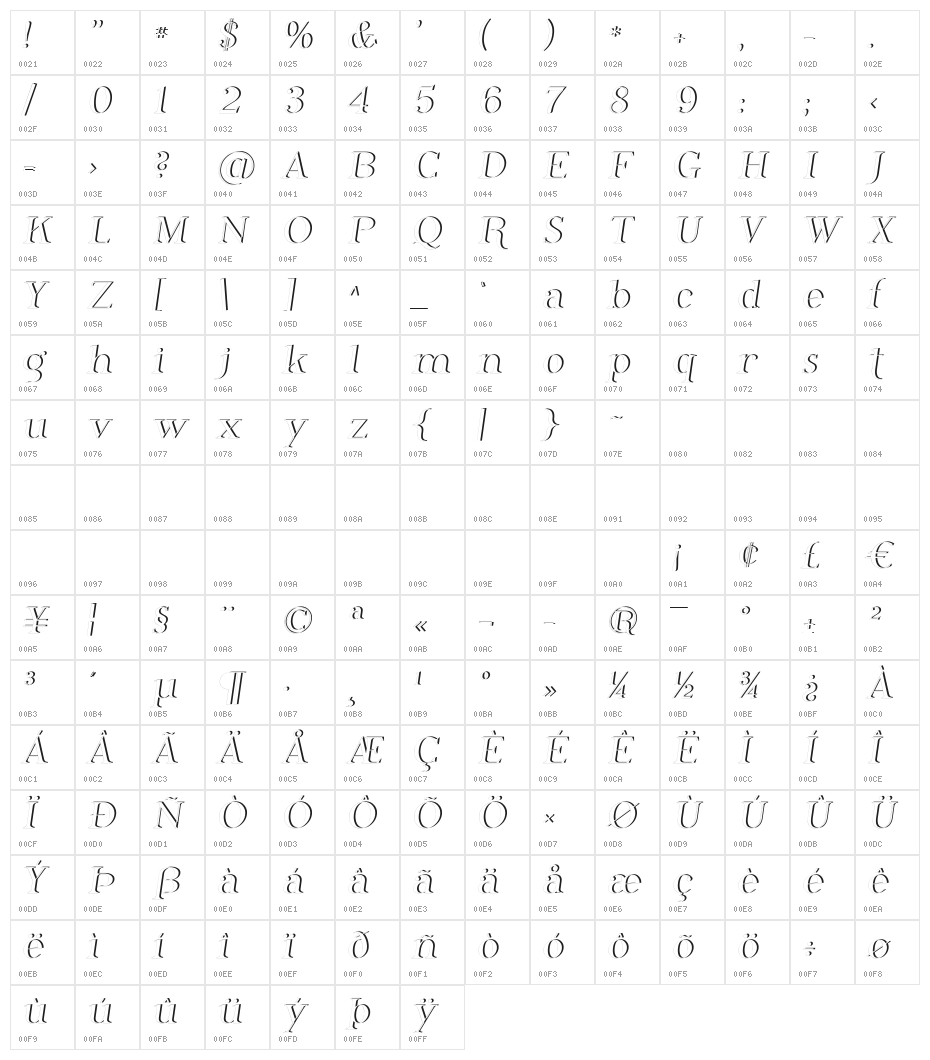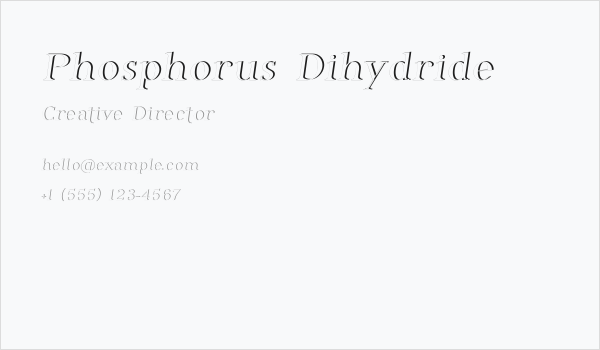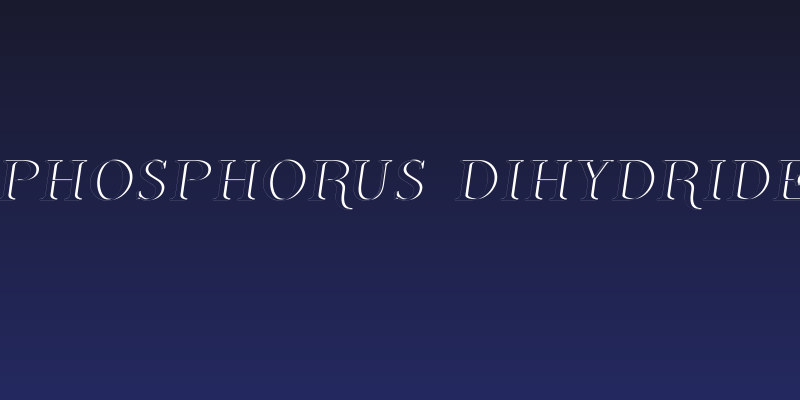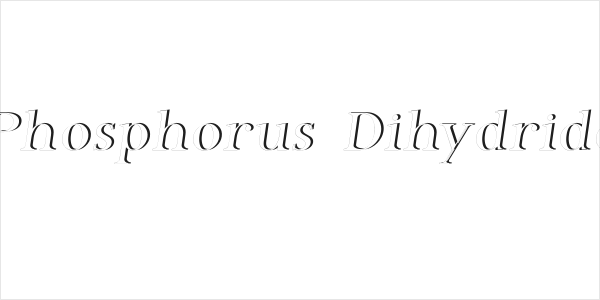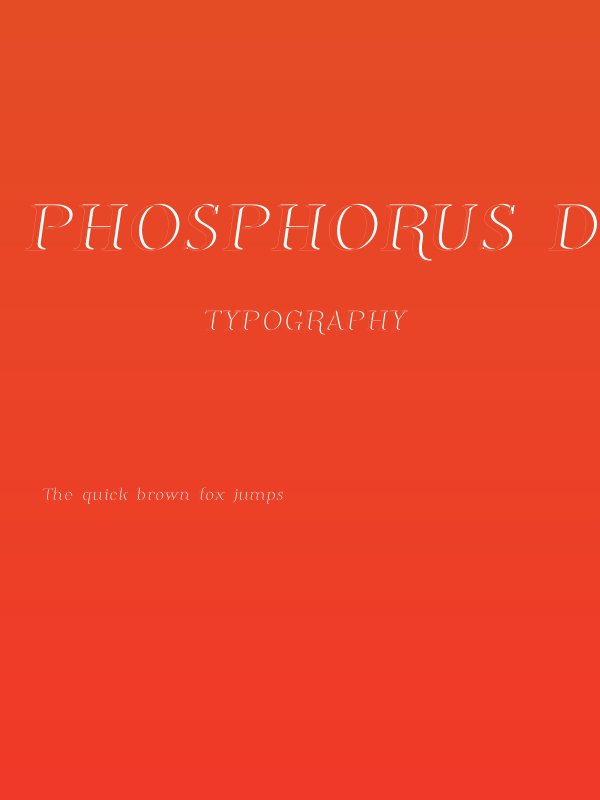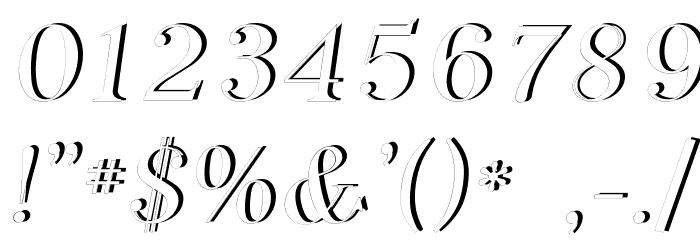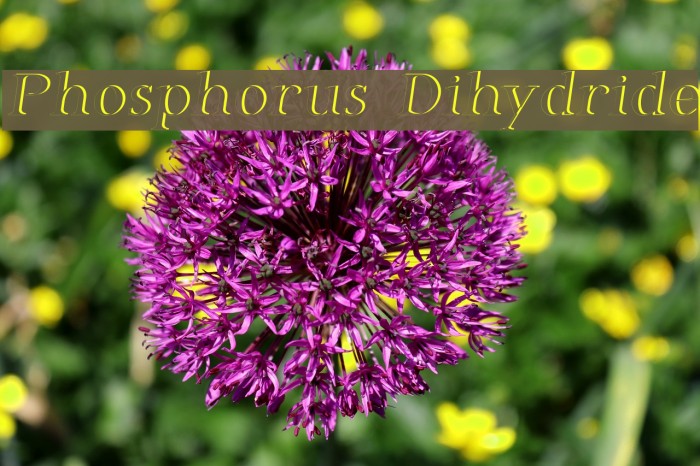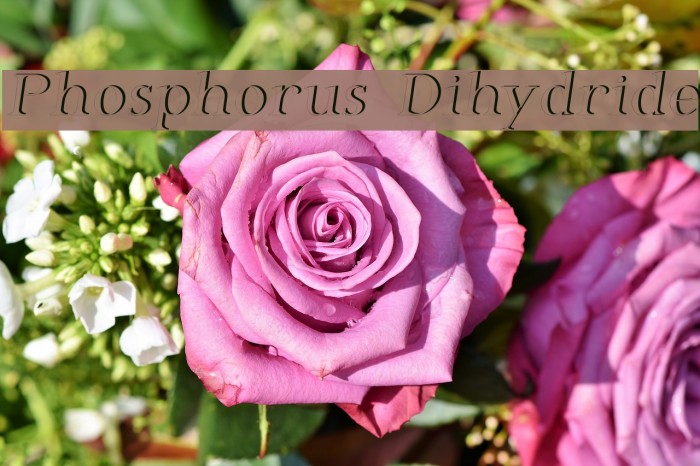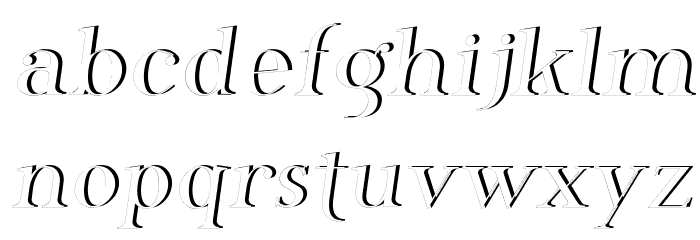
Phosphorus Dihydride Font
Phosphorus Dihydride Description
This elegant font features a classic serif style with a modern twist. The characters are slightly italicized, giving them a sophisticated and dynamic appearance. The strokes are thin with medium contrast, creating a refined and polished look. The uppercase letters are tall and stately, while the lowercase letters maintain a consistent flow with gentle curves. The numerals are clear and balanced, matching the overall aesthetic of the font. Special characters are thoughtfully designed, ensuring versatility in various applications.
| Categories | Serif |
| Overall Style | Classic |
| Use Case | Headlines, Body text, Logos |
| Proposed Projects | Ideal for use in luxury branding, editorial design, wedding invitations, and elegant packaging. |